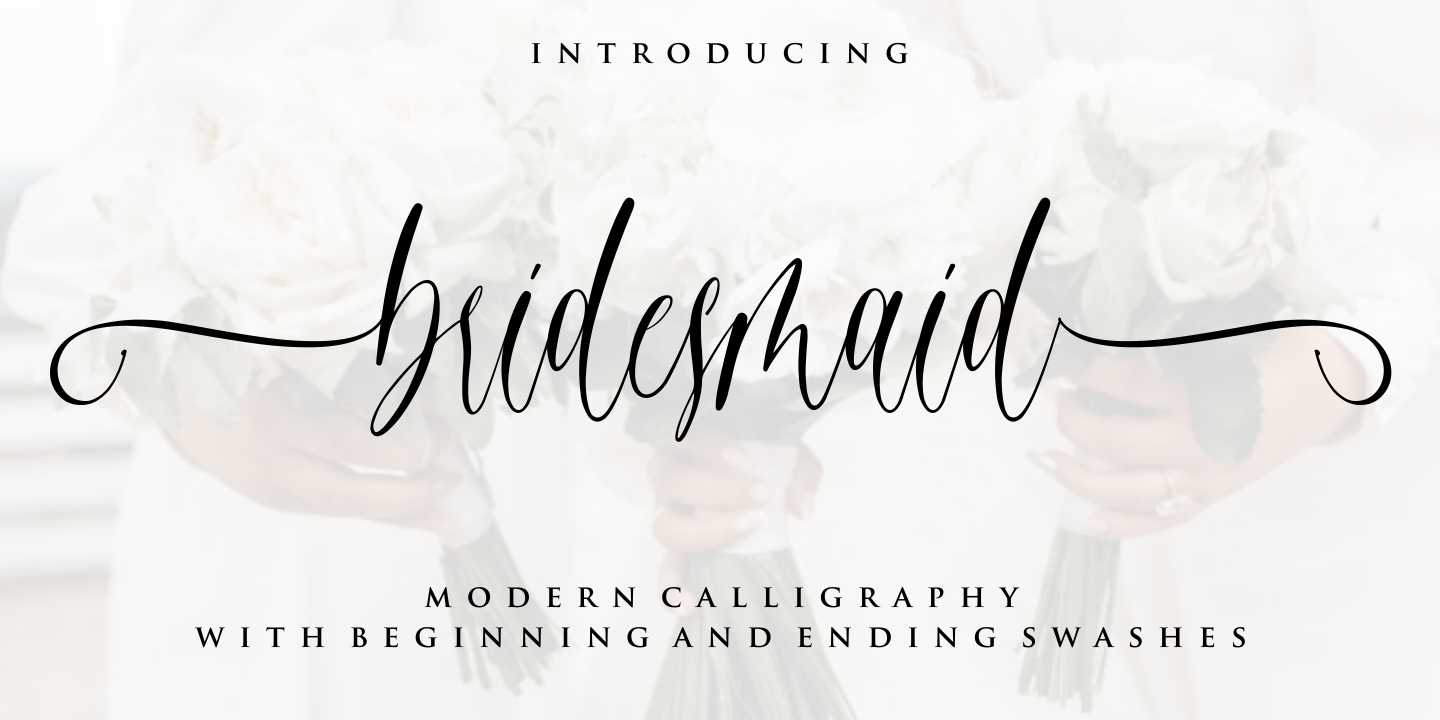
Discover the elegant Bridesmaid Font Free Download, a graceful script typeface that brings a romantic, hand-crafted charm to your designs. This font is perfect for creating a delicate, sophisticated aesthetic. However, please note that you must purchase this font for commercial use. For testing purposes, you can download it for free and explore its enchanting style.
The Bridesmaid Font is ideal for various applications, such as designing beautiful wedding invitations, crafting elegant greeting cards, creating romantic branding materials, or adding a refined touch to social media graphics. Its versatility makes it a top choice for projects that demand a feminine, heartfelt look.
Why is the Bridesmaid Font Free Download so exciting? Its flowing, handwritten design with smooth curves and delicate flourishes evokes a sense of romance and elegance. The font’s natural, organic style ensures your designs feel personal and captivating, perfect for special occasions and creative projects.
The Bridesmaid Font family includes variations like Regular, Bold, and Italic, offering flexibility for diverse design needs. These styles allow you to experiment with different weights and effects, ideal for both print and digital media.